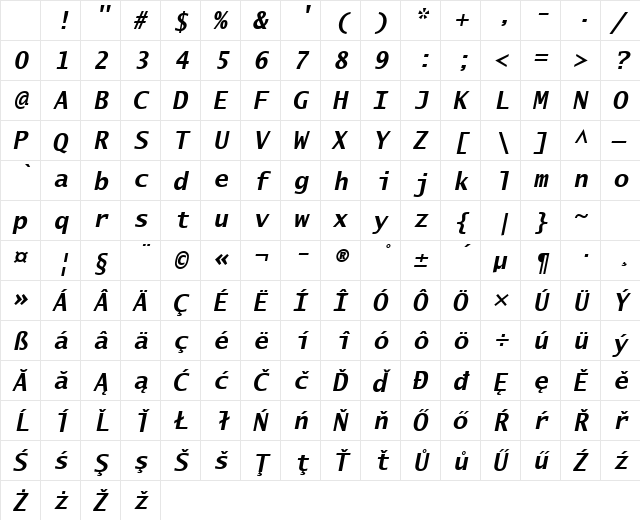
Complete Lucida Sans Typewriter CE Bold Oblique glyph index. Displaying only characters natively supported by Lucida Sans Typewriter CE Bold Oblique font.
Lucida Sans Typewriter CE uses fixed-width spacing throughout, giving it the structured, systematic character associated with coding environments and technical documentation. The slanted form adds forward momentum and visual energy. Its bold stroke weight gives it real presence on the page.